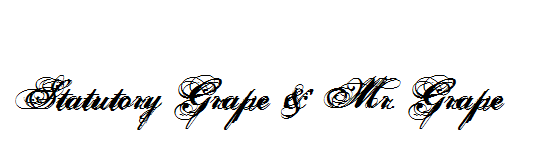
I think it needs to be a clean sans serif to balance it out. Univers, Franklin Gothic, etc.
Try Minion Pro? It's a nice serifed typeface that usually lends itself well to all kinds of other typefaces.
This is definitely a display font, so you could also use it for headings on your other stationery pieces. (Example: "Your Response Please" on an RSVP card, "Menu" on your menus, etc.) I would shy away from using it in the body of your cards, as it may be a challenge to read in large blocks of text.
Because this font is so bold & intense, I think thinline sans serif fonts are your best bet for harmony. Think clean & simple. Contrast (bold vs. light, script vs. sans serif) will highlight both fonts & look pleasing to the eye. Offhand, I'd suggest District Thin, Gotham Light, Orator, or Raleway. If you are leaning more towards a serif font, St Marie might work.
@MagpiePaperWorks: It'd still be okay for our names though, right? I'll check out the fonts you suggested--I think you're right about the thinner fonts, because regular sans serifs just don't look right.
What font would go with this one? FH wants to use it for our names (and possibly the date as well), but I'm at a loss for what other fonts would go with it (that are easier to read). He hates all-caps fonts, so those are totally out.
The font in question is Hurricane from dafont.com, by the way. :)
In addition, where else might I use Hurricane?
Statutory Grape & Mr. Grape request the pleasure of your company at their union on Saturday, December 11, 2010, at 00 PM